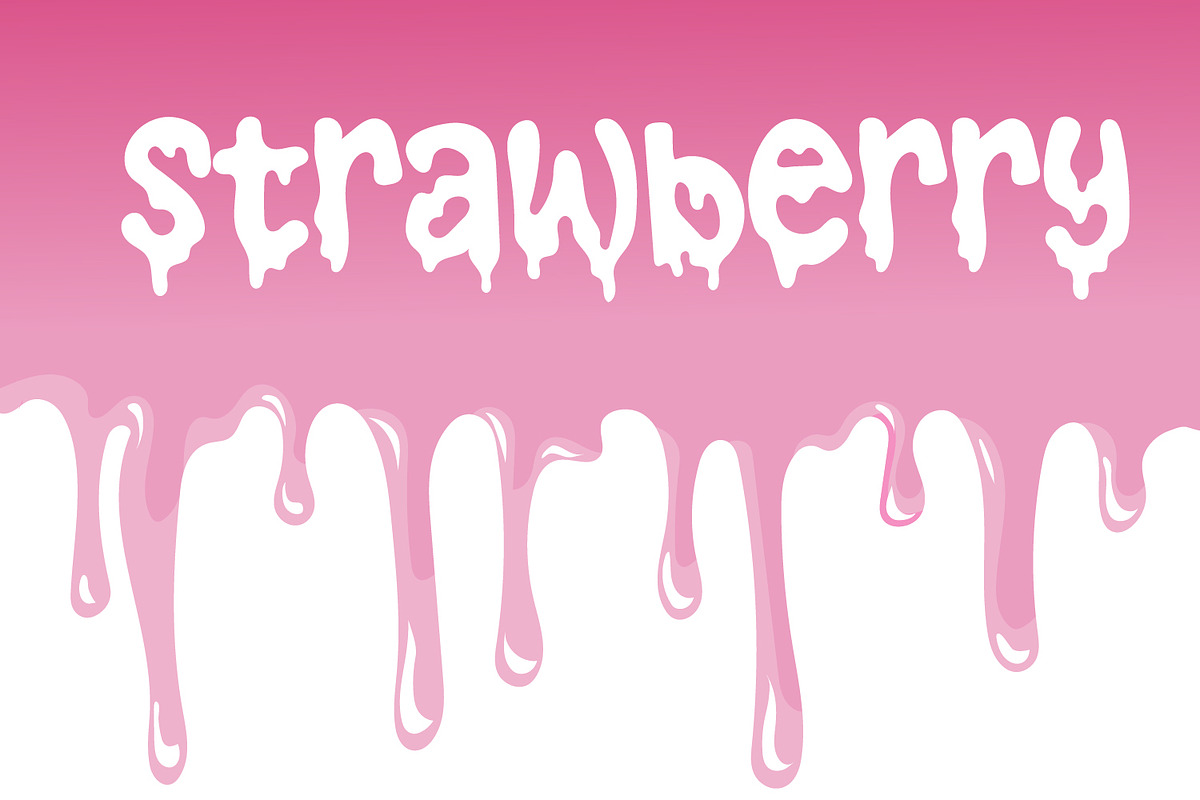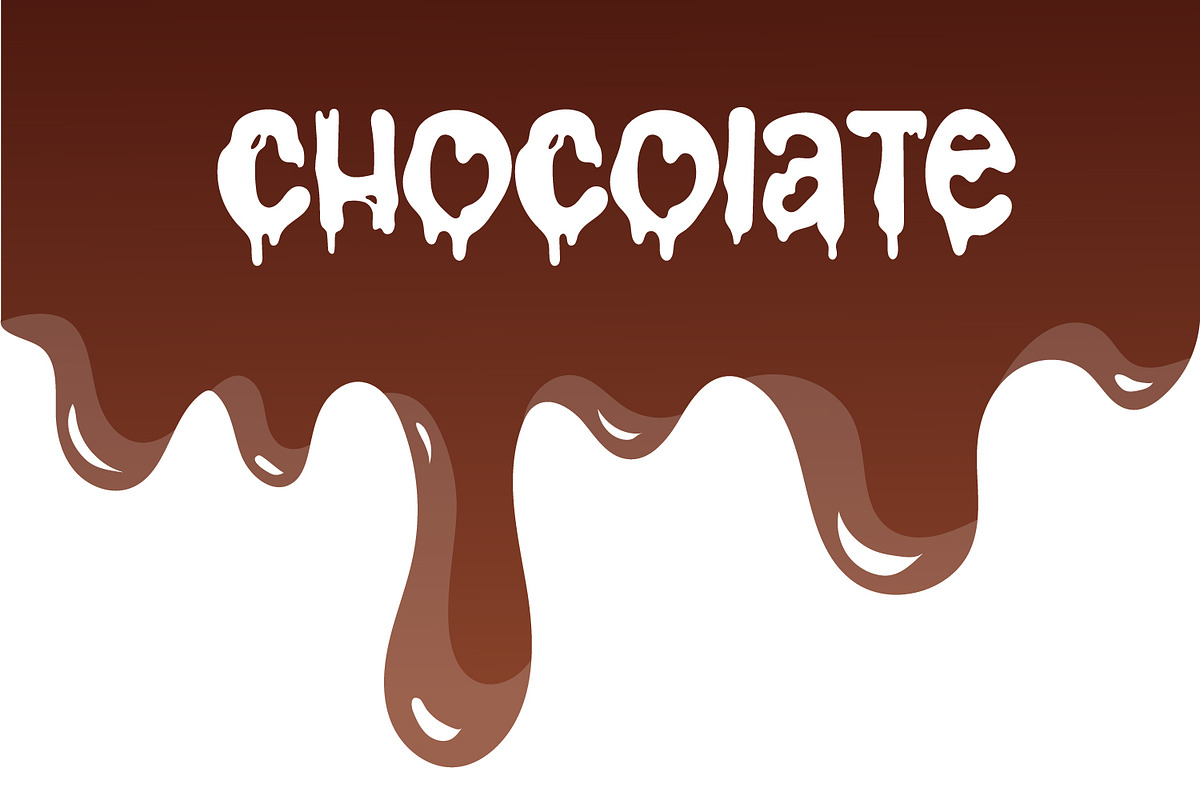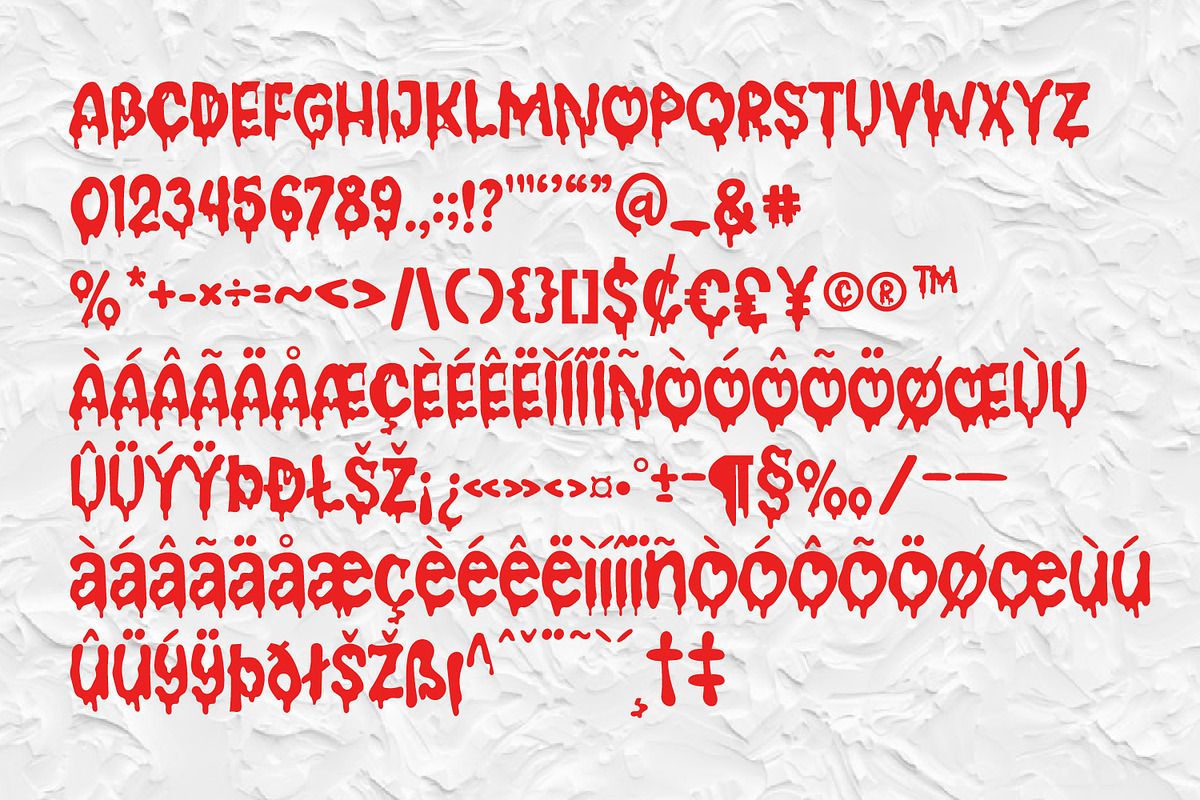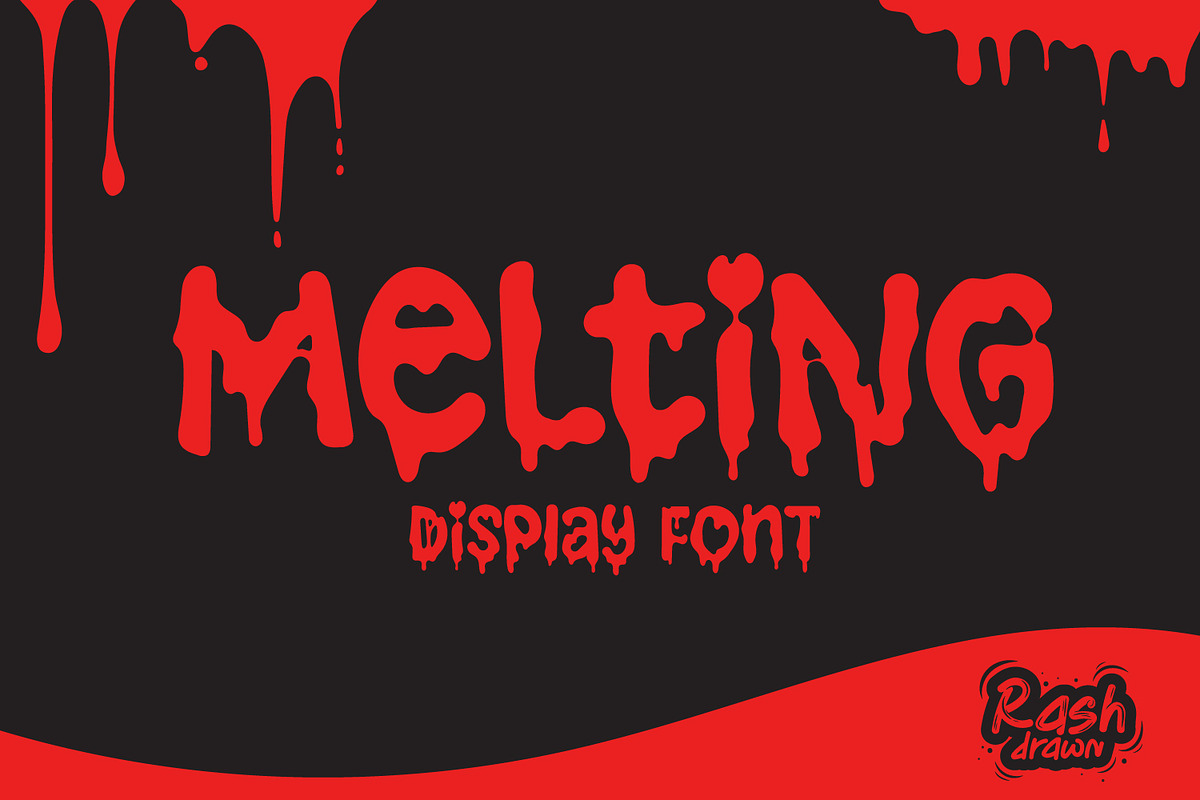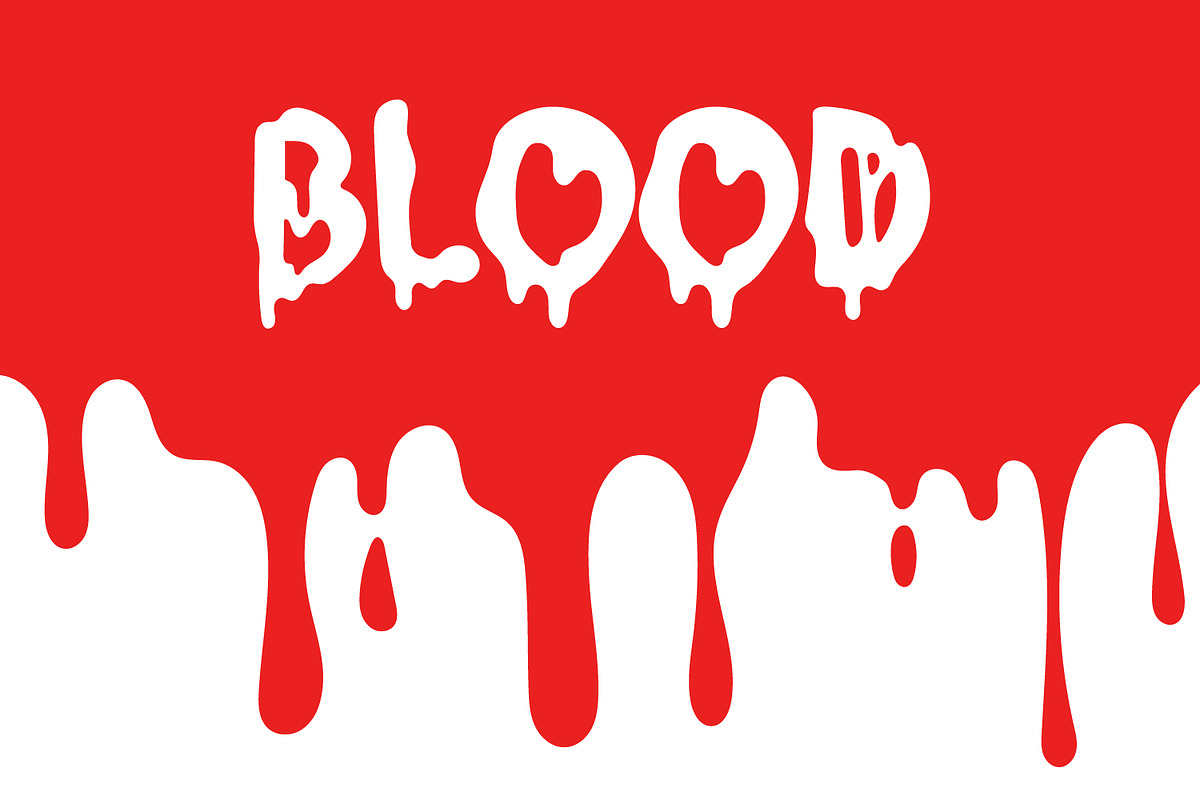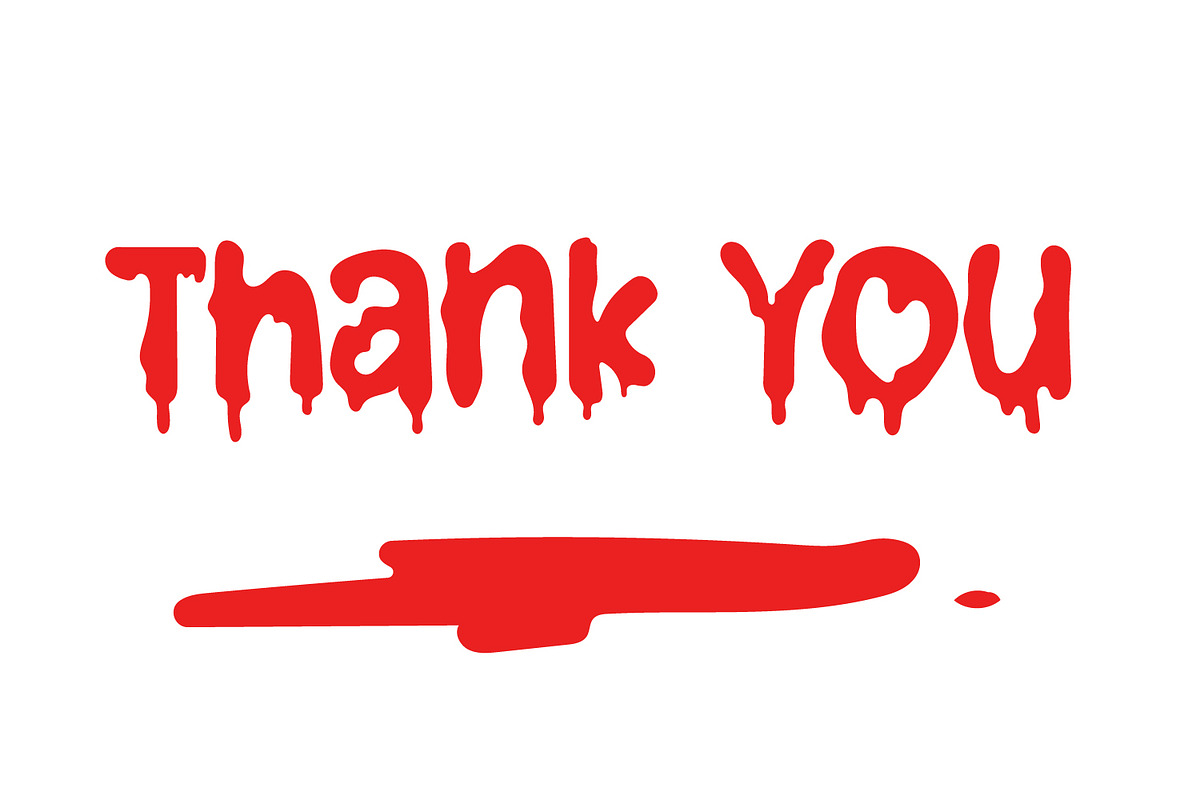
Melting
Melting is a decorative display font that is sure to add fun to your other crafty Halloween ideas as well. Add it with confidence to your projects and you'll be amazed at the resulting results!